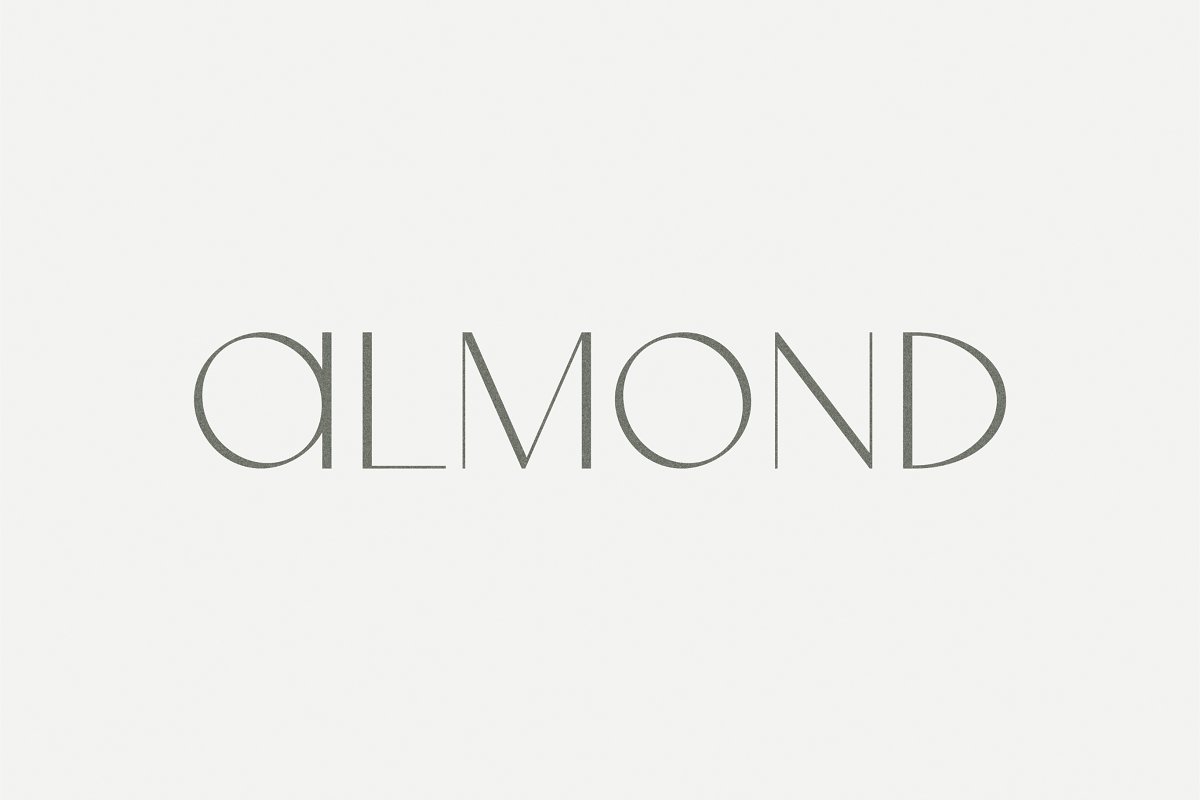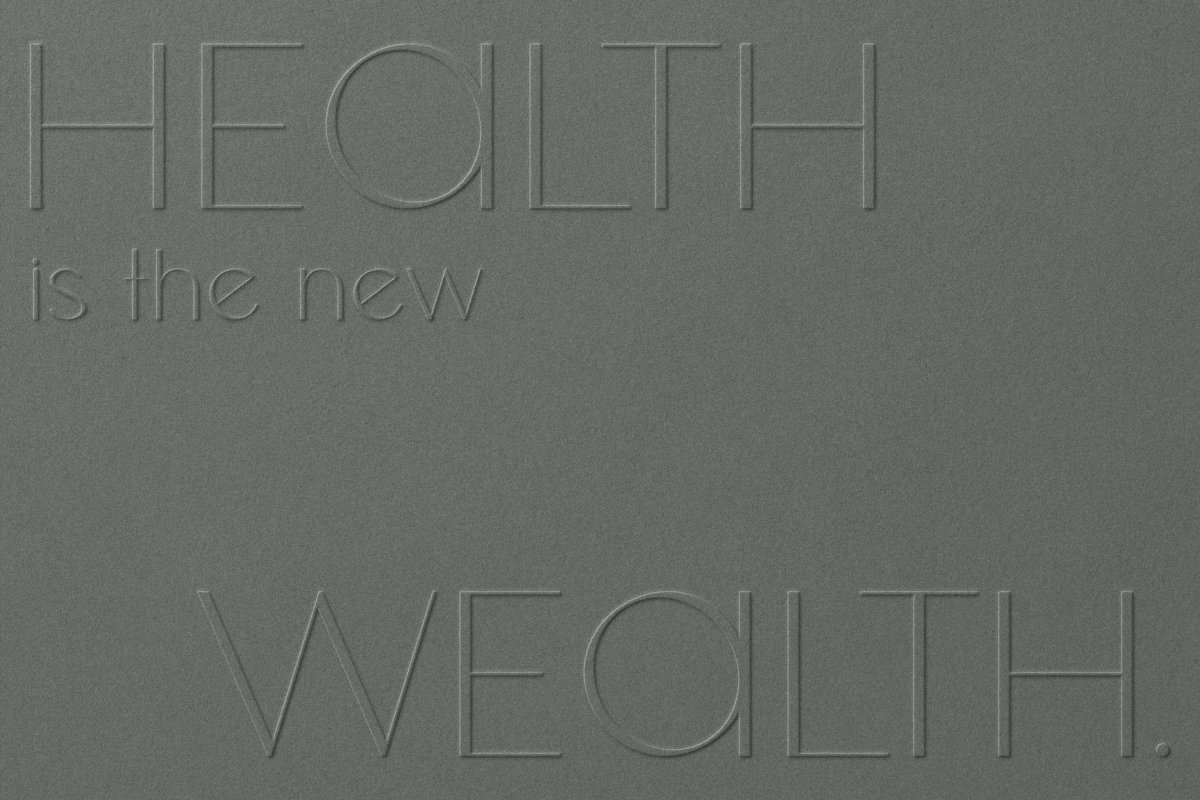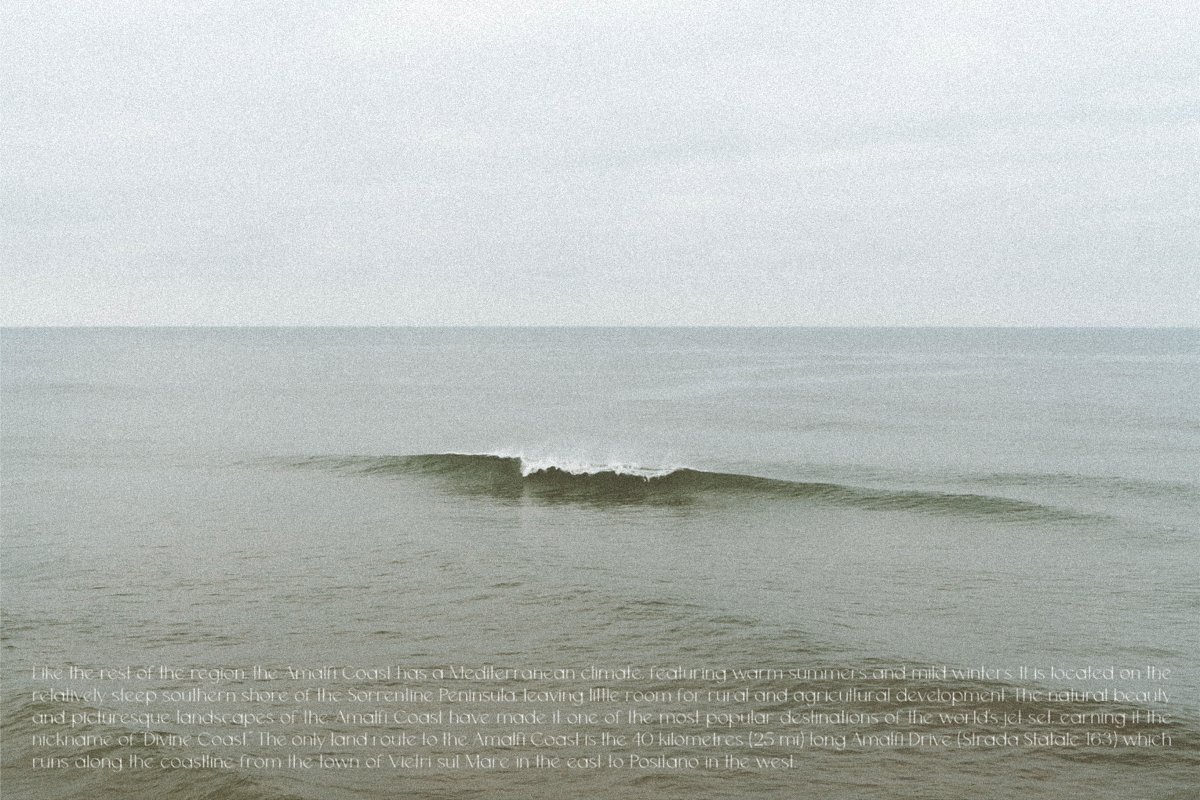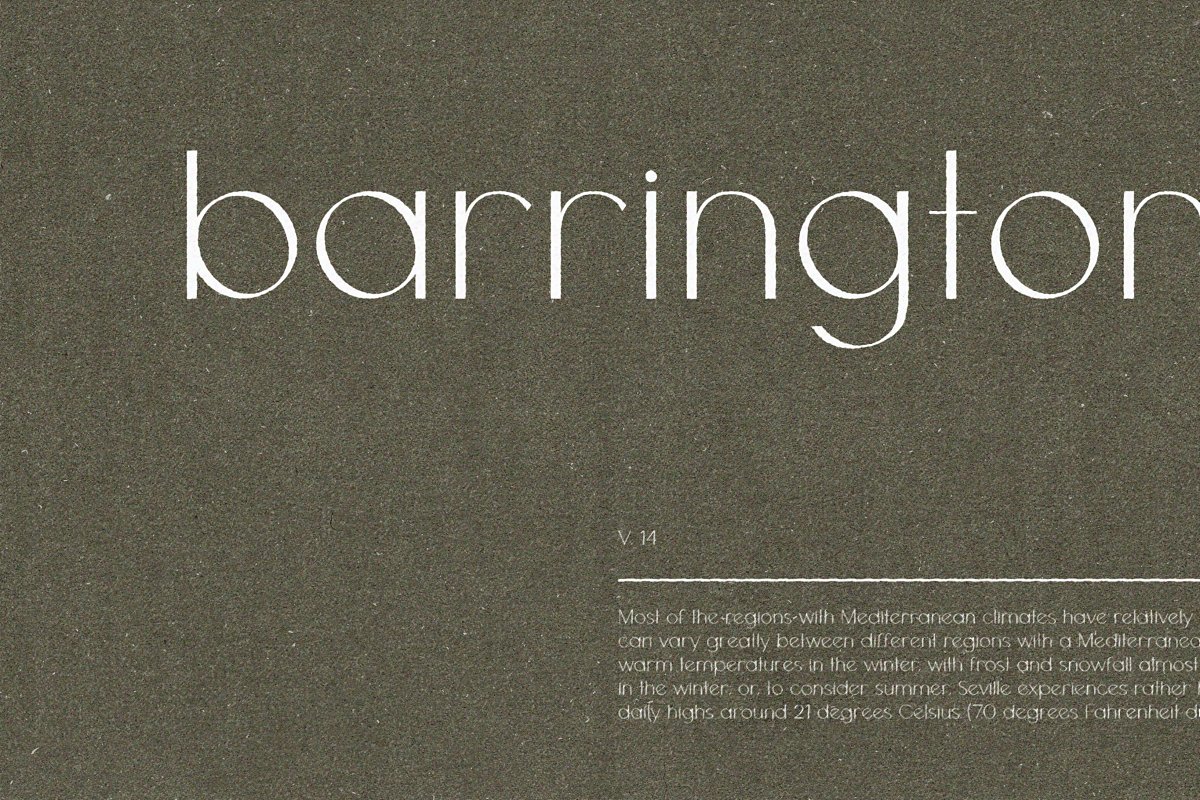
About the Almond | Sans Serif Font
She’s classy, she’s curvy, she’s buttery smooth, Her simplicity oozes sophistication, Almond is a sans serif display font with clean lines and scroll-stopping contrast strokes, Perfect for logos and branding, monograms, posters, website headers and subheaders, invitations, editorial design, and more, Pairs beautifully with minimal san serifs and classic scripts